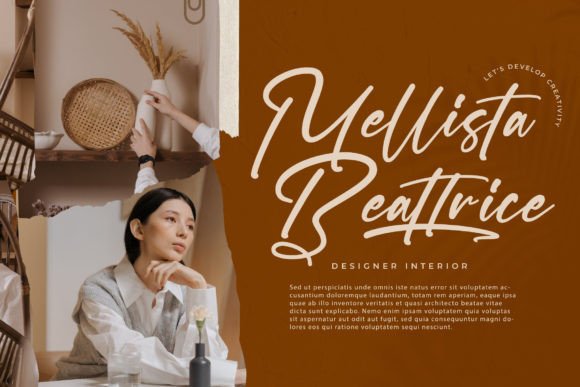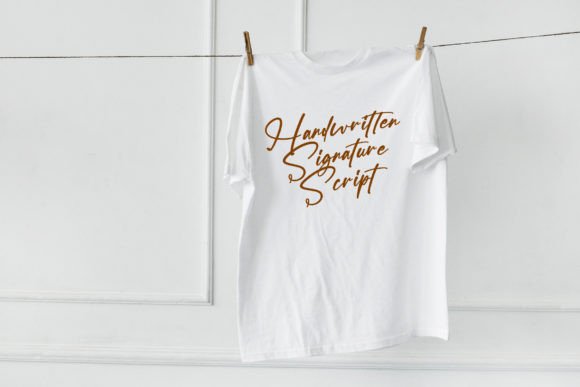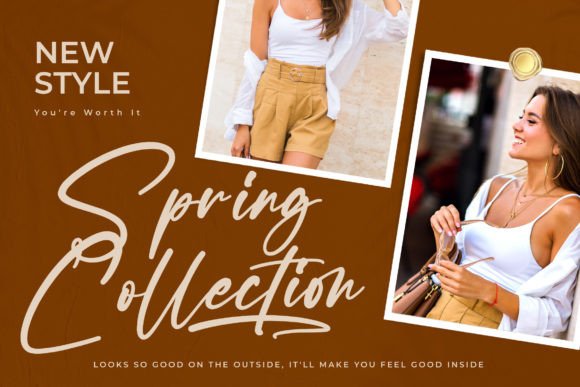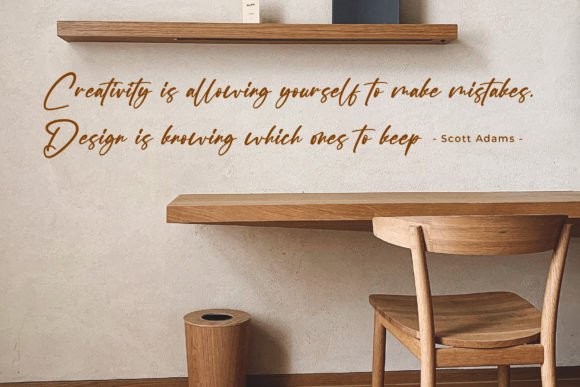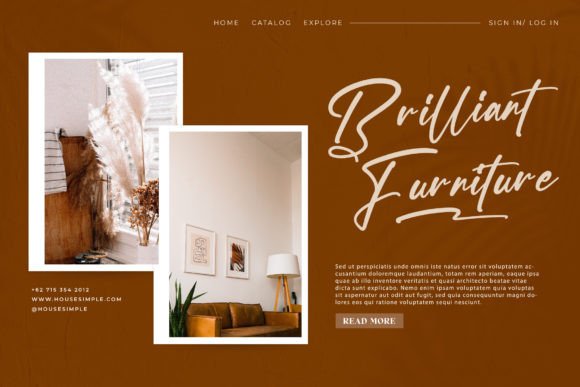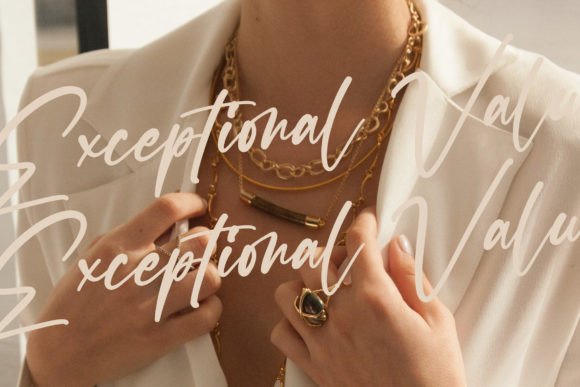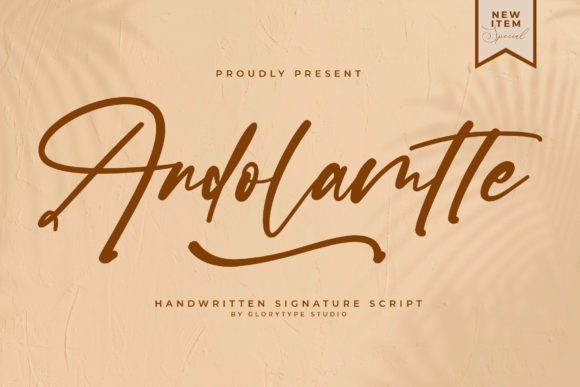
Introducing Andolamtte Font: The Perfect Handwritten Signature Script for Designers and Crafters
Are you a designer or crafter looking for a unique and elegant font to elevate your creative projects? Look no further than Andolamtte Font, a beautiful handwritten signature script that is sure to add a touch of sophistication and personality to your designs. In this article, we’ll explore the features and benefits of Andolamtte Font, and show you how it can be used to create stunning visual content for a wide range of applications.
What is Andolamtte Font?
Andolamtte Font is a handwritten signature script that is characterized by its flowing, cursive strokes and elegant letterforms. This lovely font is perfect for adding a personal touch to your designs, and its unique charm is sure to capture the attention of your audience. Whether you’re creating logos, branding projects, or marketing materials, Andolamtte Font is a versatile and stylish choice that is sure to impress.
Features of Andolamtte Font
So, what makes Andolamtte Font so special? Here are just a few of its key features:
- Handwritten signature script: Andolamtte Font is a genuine handwritten font, with each letterform carefully crafted to create a unique and authentic look.
- Elegant and refined: With its flowing strokes and cursive letterforms, Andolamtte Font is the perfect choice for designers and crafters who want to add a touch of sophistication to their designs.
- Versatile: Andolamtte Font can be used for a wide range of applications, from logos and branding projects to homeware designs, product packaging, and more.
- Easy to read: Despite its elegant and refined appearance, Andolamtte Font is still easy to read, making it perfect for use in body text and other applications where legibility is important.
Uses for Andolamtte Font
So, what can you use Andolamtte Font for? The possibilities are endless! Here are just a few ideas to get you started:
- Logos and branding projects: Andolamtte Font is a great choice for logos and branding projects, where its unique and elegant appearance can help to create a lasting impression.
- Homeware designs: Add a touch of personality to your homeware designs with Andolamtte Font, perfect for use on mugs, quotes, posters, and more.
- Product packaging: Stand out from the crowd with Andolamtte Font on your product packaging, whether you’re selling t-shirts, shopping bags, or other products.
- Book covers and name cards: Andolamtte Font is a great choice for book covers and name cards, where its elegant appearance can help to create a professional and polished look.
- Invitation cards and greeting cards: Add a personal touch to your invitation cards and greeting cards with Andolamtte Font, perfect for special events and occasions.
- Labels and photography: Use Andolamtte Font to add a touch of elegance to your labels and photography, whether you’re creating watermarks or other visual content.
Tips for Using Andolamtte Font
Here are a few tips for getting the most out of Andolamtte Font:
- Experiment with different sizes and colors: Andolamtte Font looks great in a range of sizes and colors, so don’t be afraid to experiment and find the perfect combination for your design.
- Pair with other fonts: Andolamtte Font pairs well with a range of other fonts, so try combining it with different fonts to create a unique and interesting look.
- Use it sparingly: While Andolamtte Font is a beautiful font, it can be overwhelming if used too much. Try using it sparingly to add a touch of elegance to your design.
Andolamtte Font is a beautiful handwritten signature script that is perfect for designers and crafters who want to add a touch of elegance and personality to their designs. With its flowing strokes, elegant letterforms, and versatile uses, Andolamtte Font is a great choice for a wide range of applications. Whether you’re creating logos, branding projects, homeware designs, or other visual content, Andolamtte Font is sure to impress. So why not give it a try and see the difference it can make in your designs?